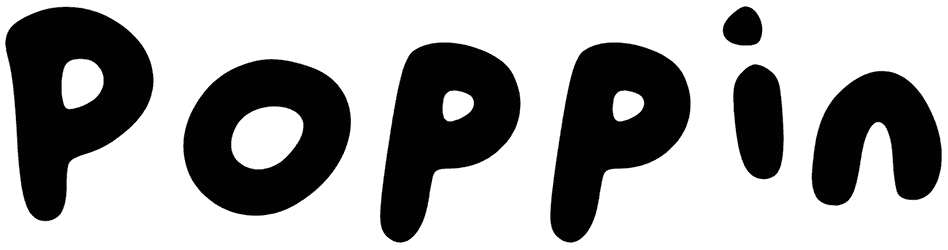
Poppin Font
Designed byChuu Pipi
For inspiring your younger audience, you need to choose a fun and happy-looking font like Poppin. This font is under the handwriting font category, which creates a childish look with a bold and unrefined marker design.